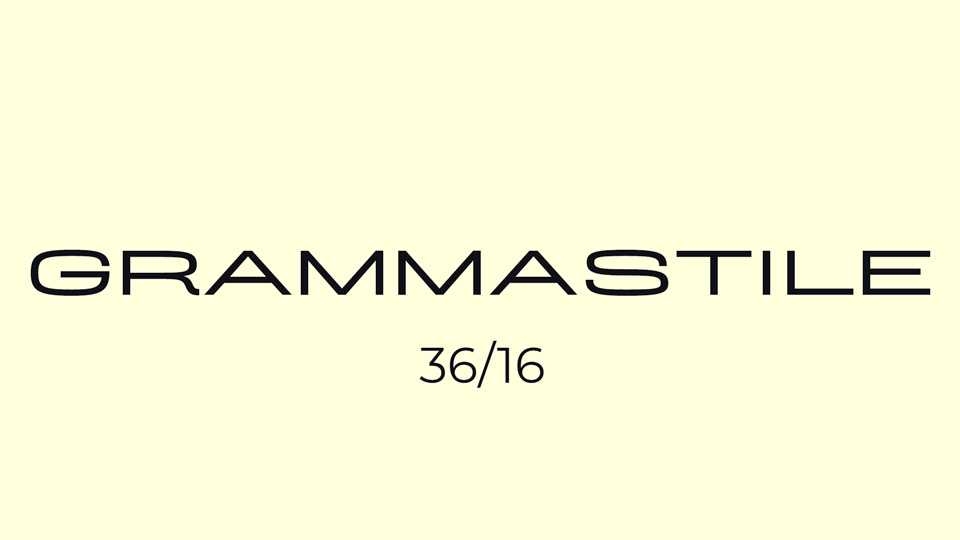
Download Grammastile font, a display sans serif typeface inspired by the biggest star in sci-fi typography, Eurostile. Despite the original, the font has own strong personality.
Designer: Justin Penner